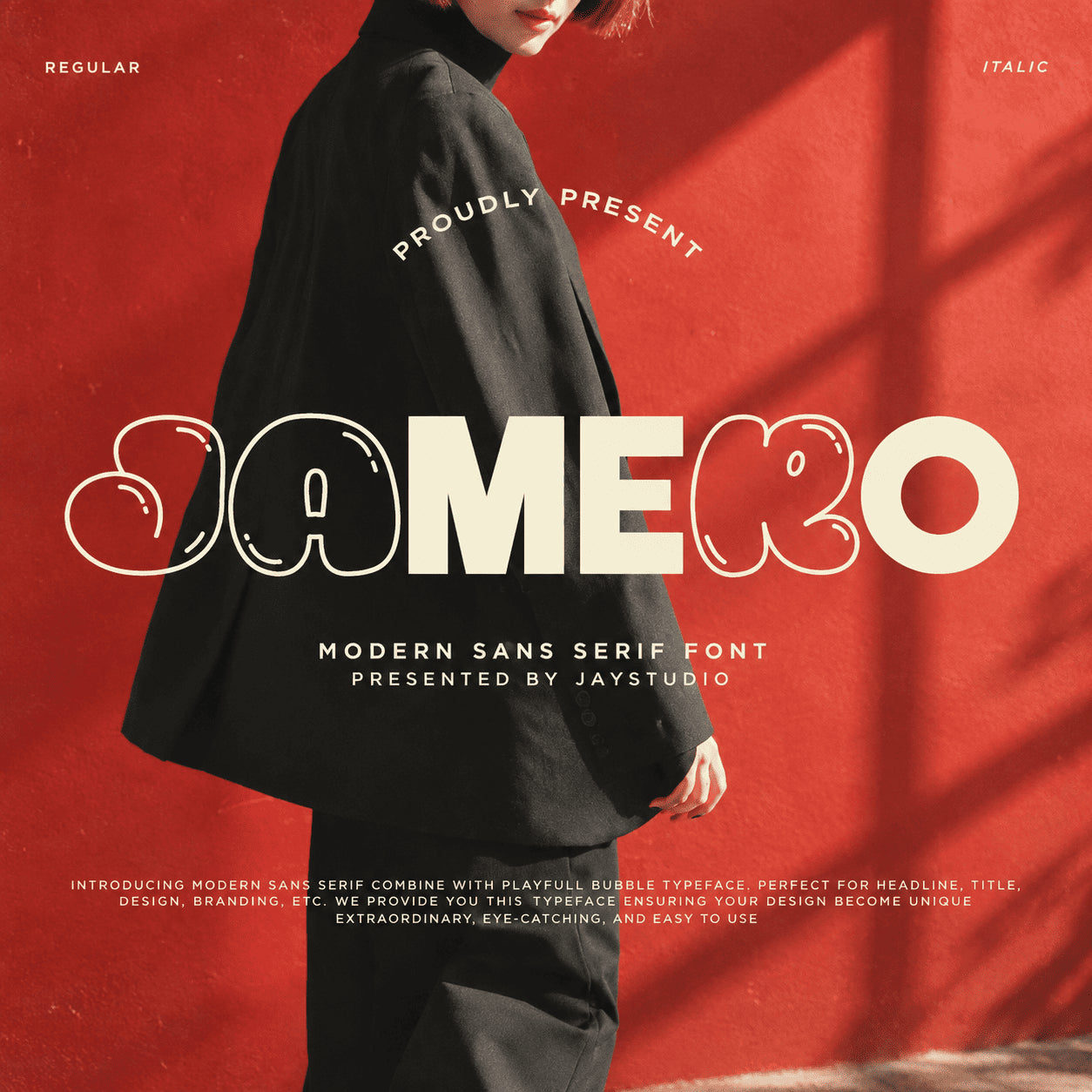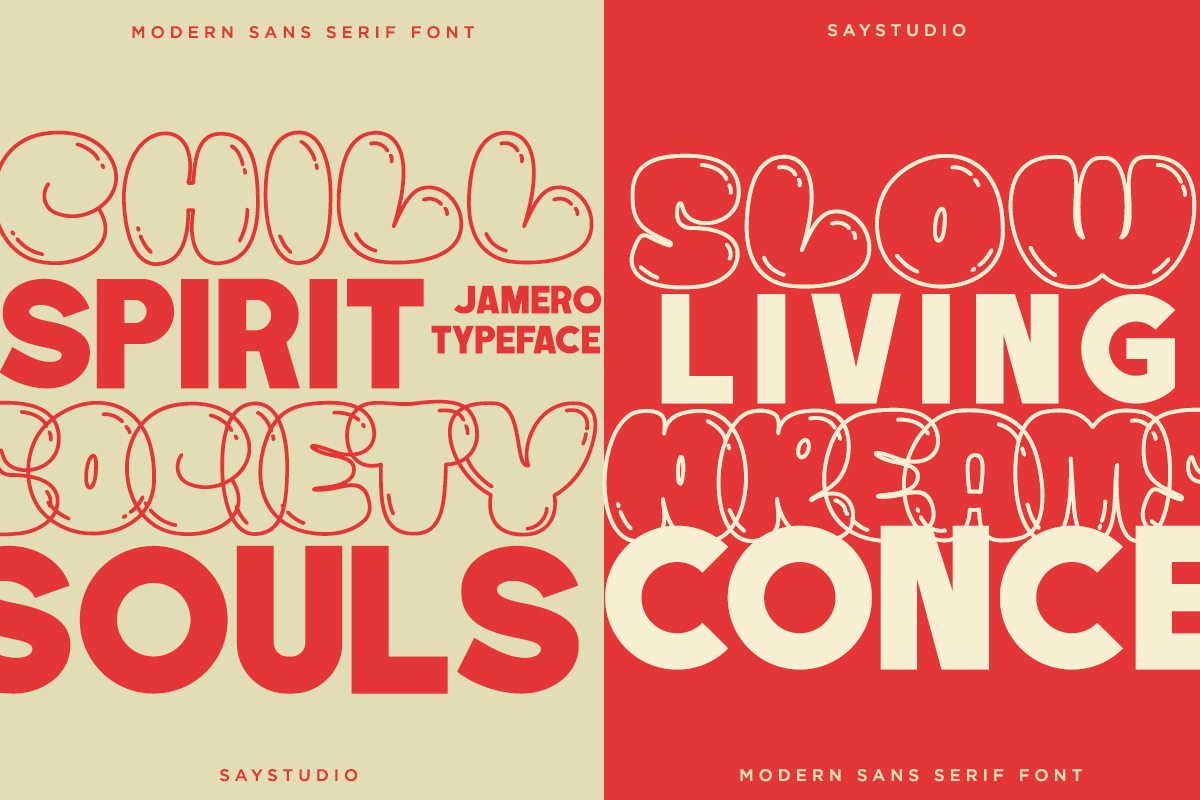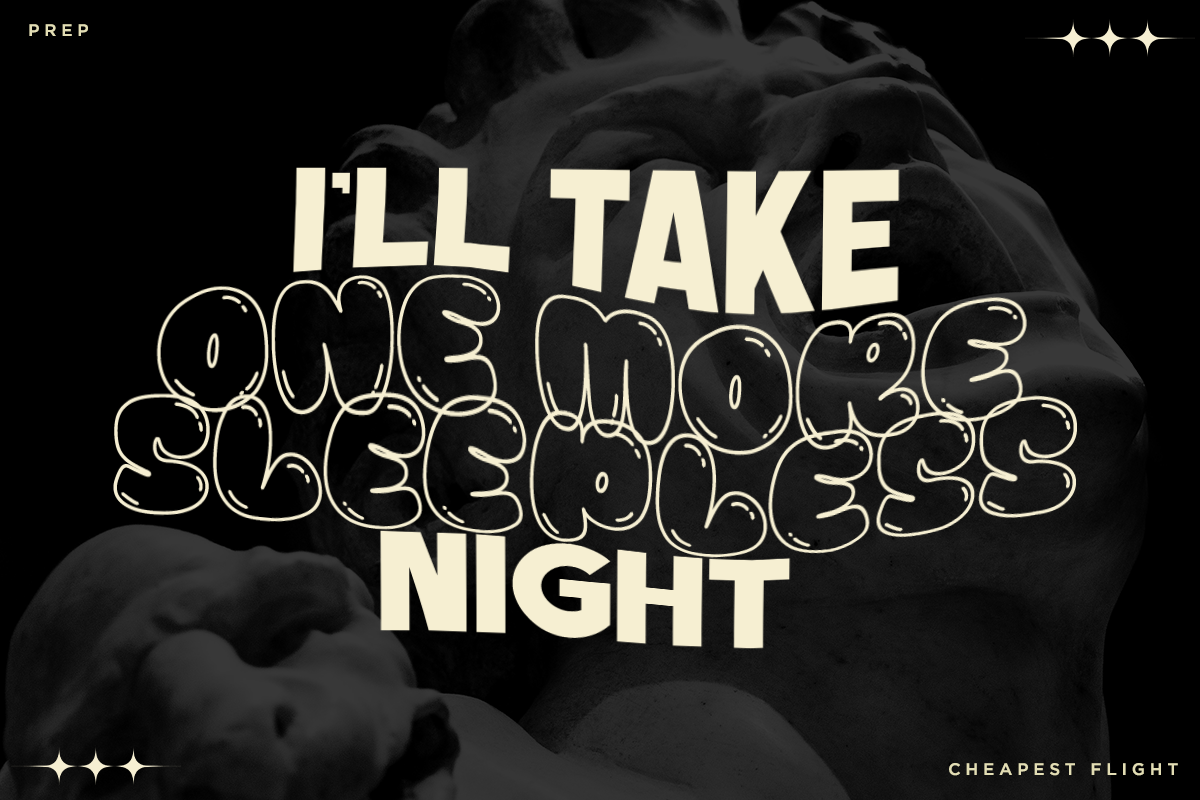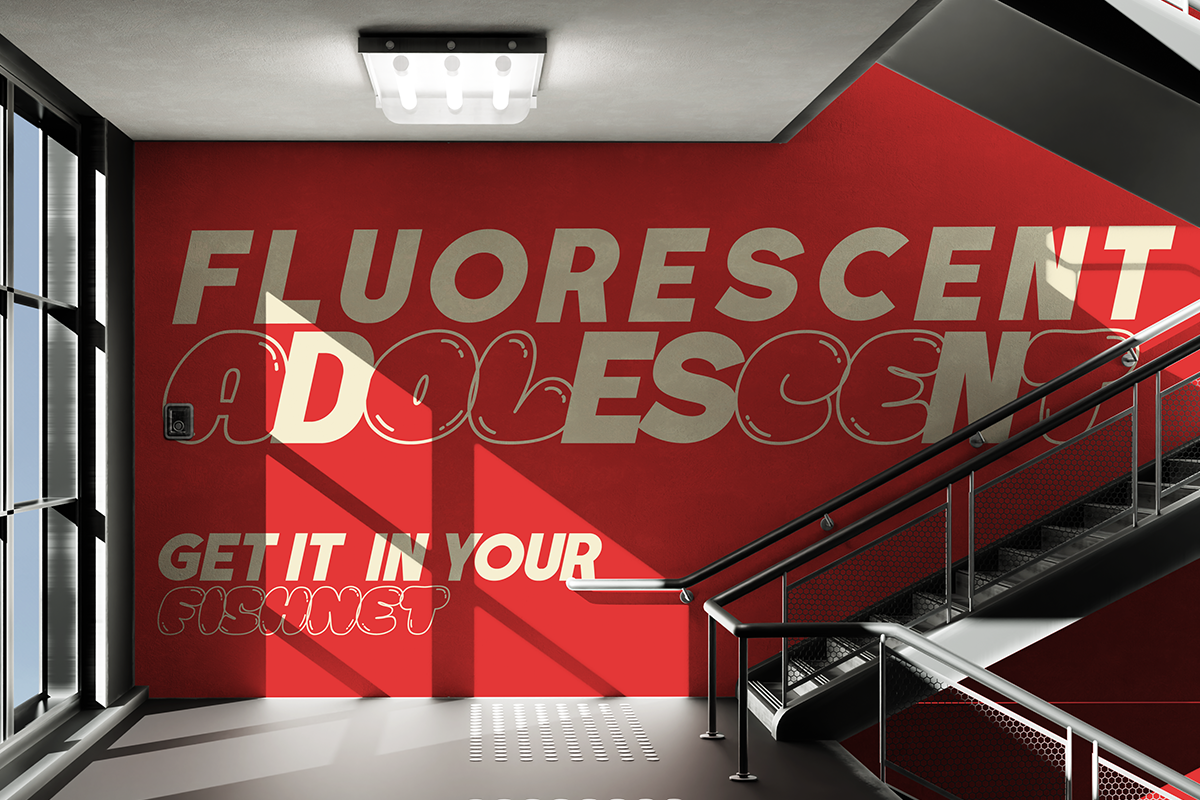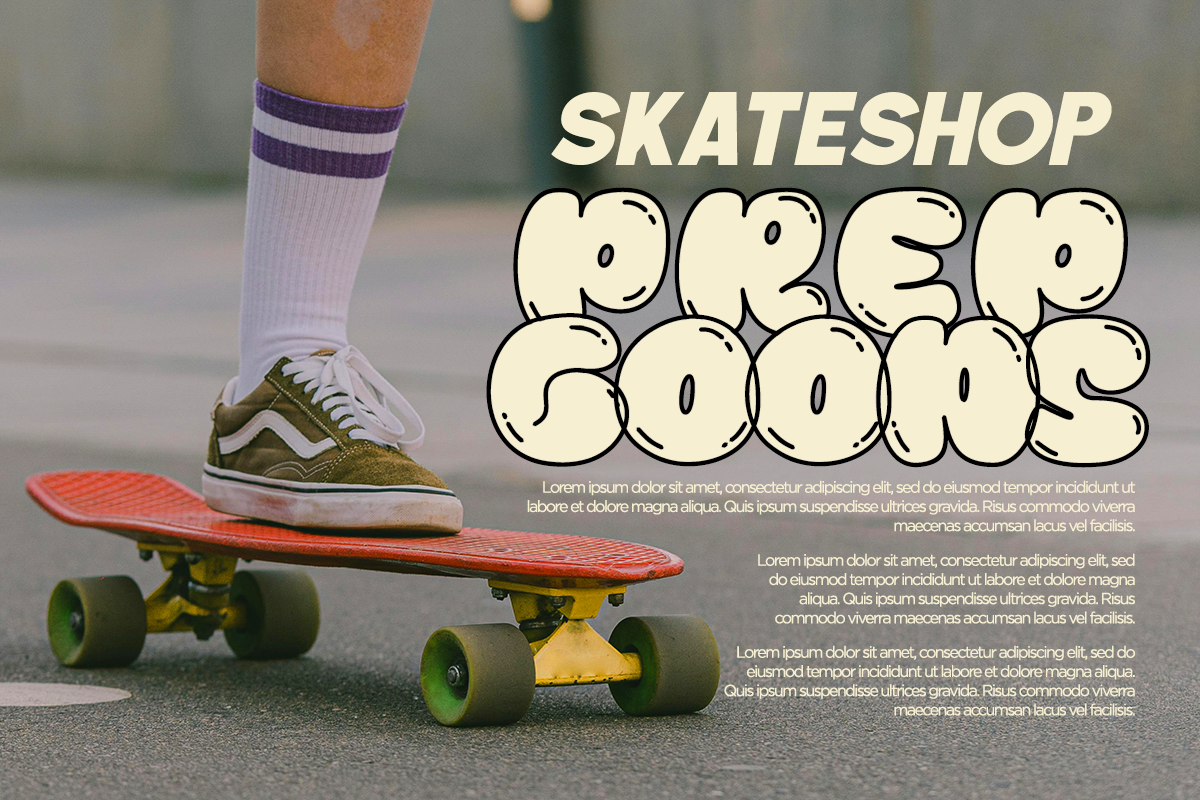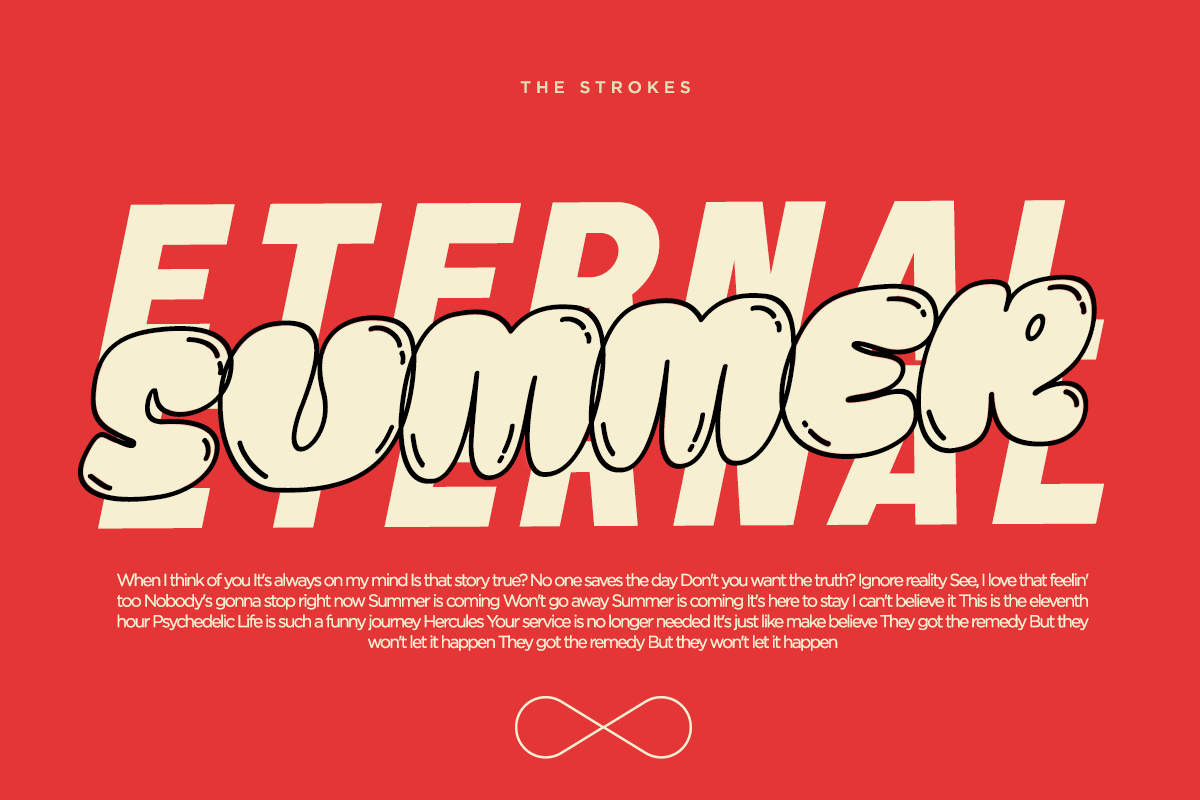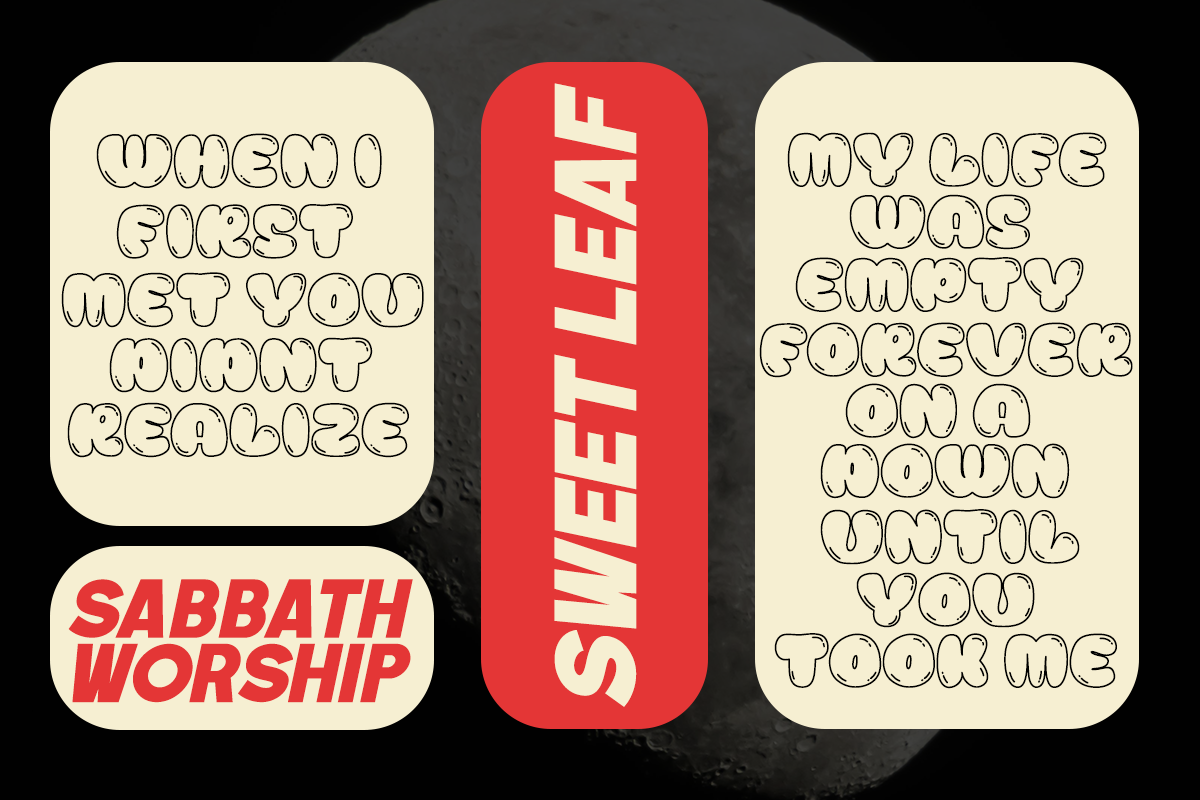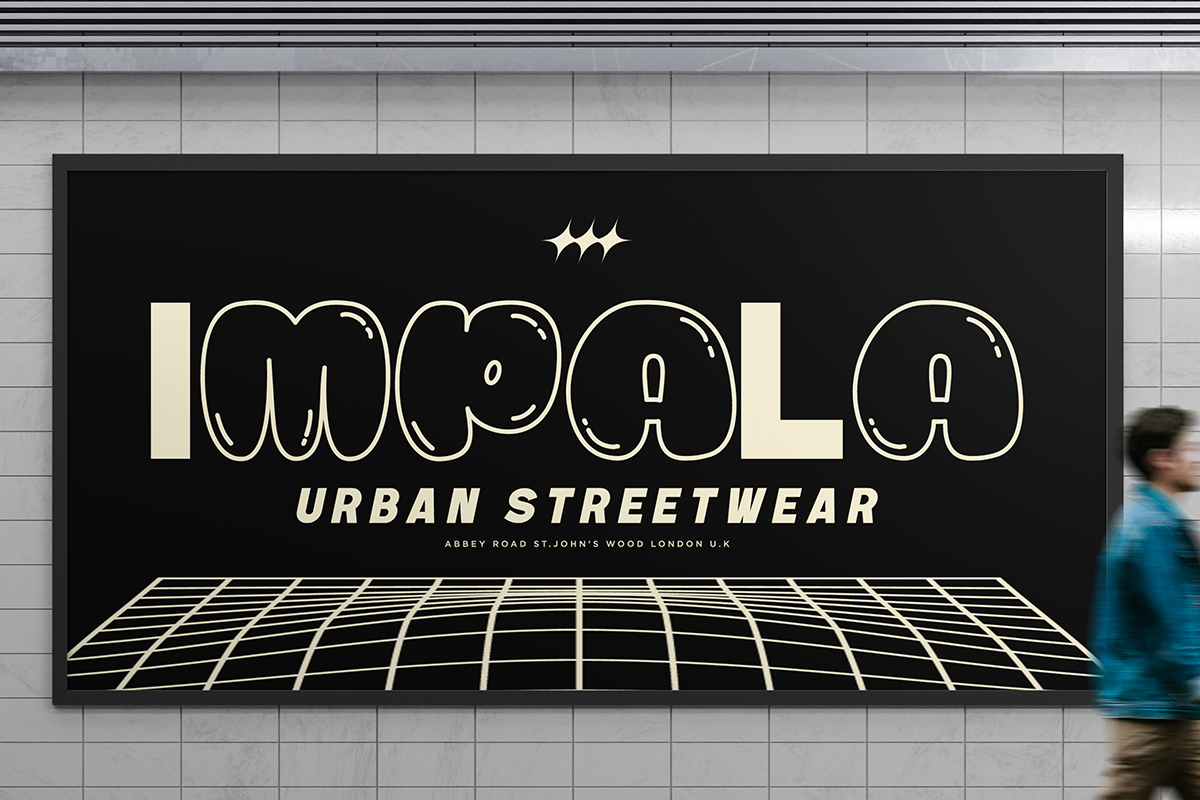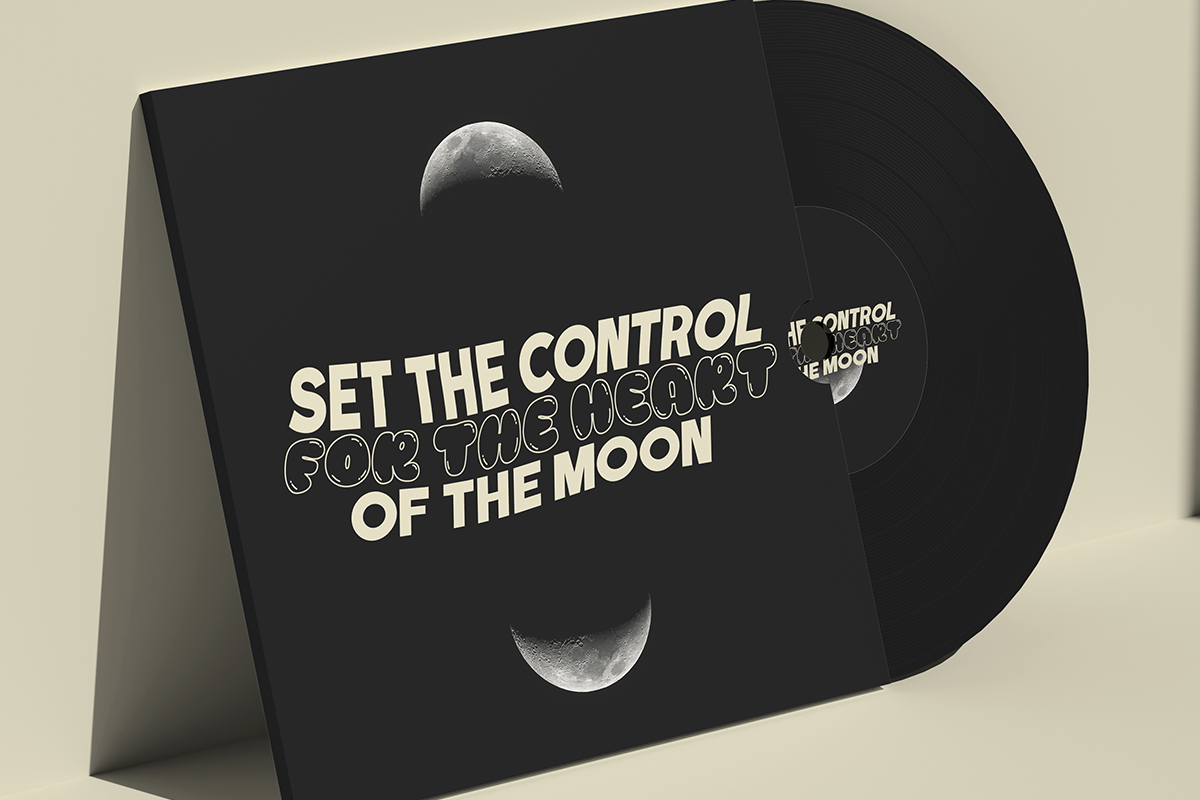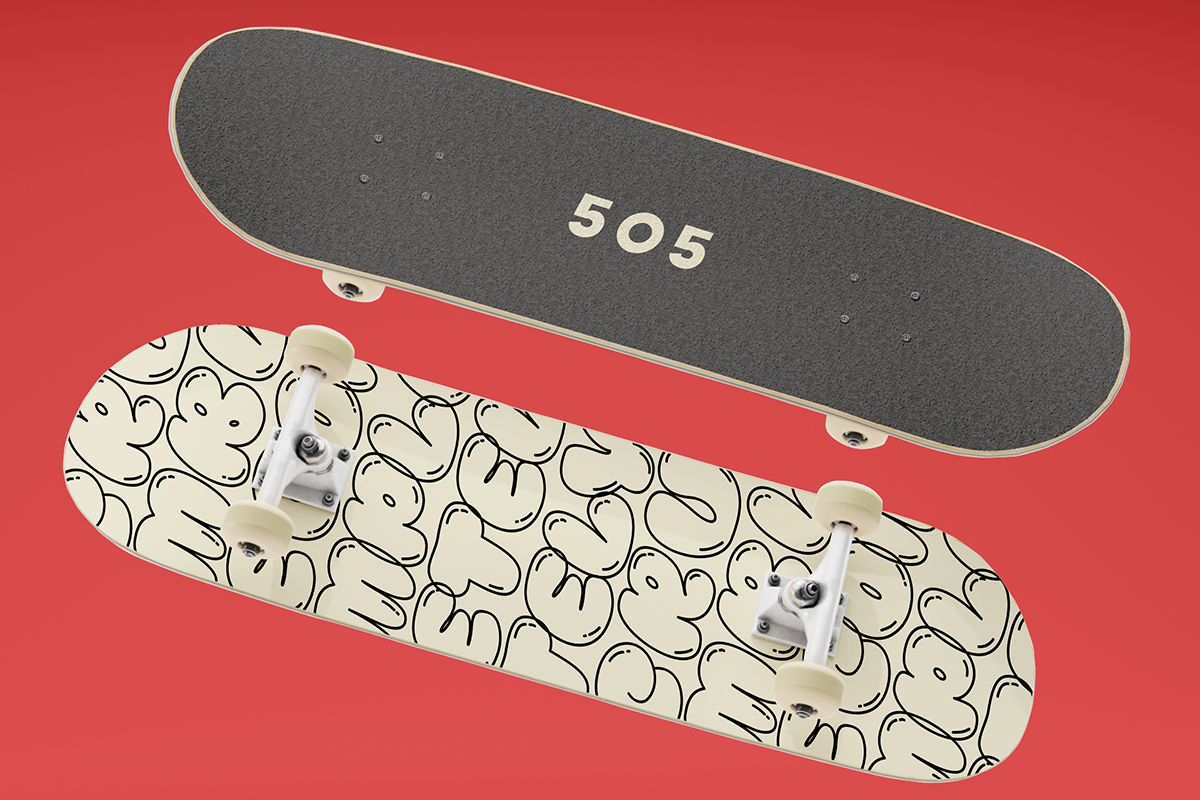
Jamero - Experimental Display Font
Introducing Jamero, a modern display font blending modern sans serif and bubble groovy typeface. Perfect for headlines and titles, children’s invitations, birthday party posters, toy branding, playful packaging, and any design needing a touch of joy. it infuses any project with a vibrant bubble and modern theme, ensuring your designs stand out with a unique, eye-catching style. This nostalgic yet modern font is versatile for various creative applications.
• Regular and Italic
• Uppercase and Lowercase
Jamero is a display font combining sans serif and bubble-style typeface elements, available in Regular and Italic styles with uppercase, lowercase, numbers, symbols, and punctuation. It includes multilingual support and is provided in OTF, TTF, and WOFF formats.